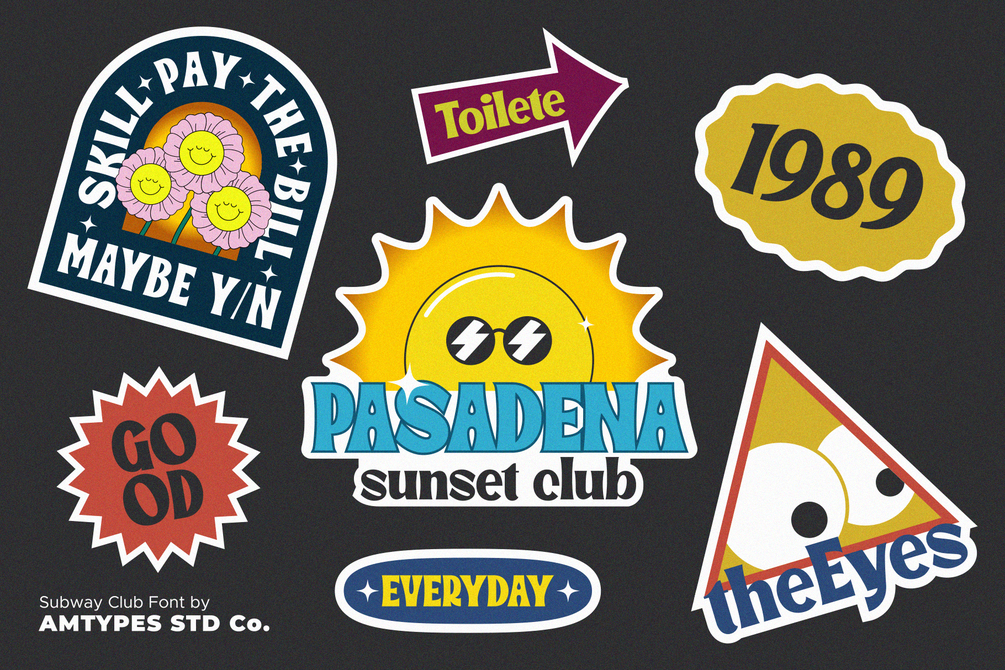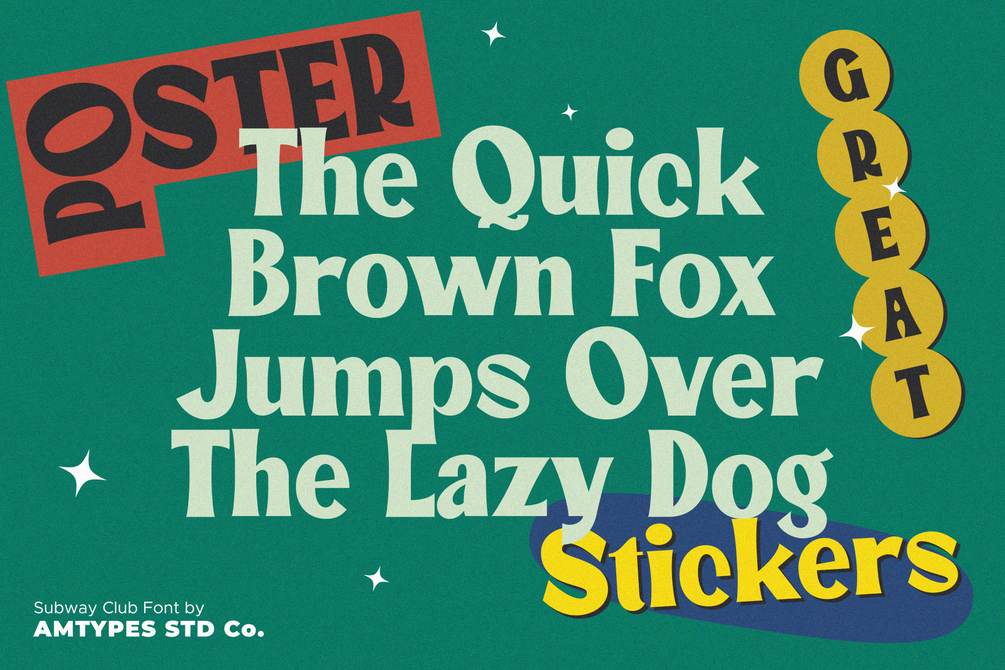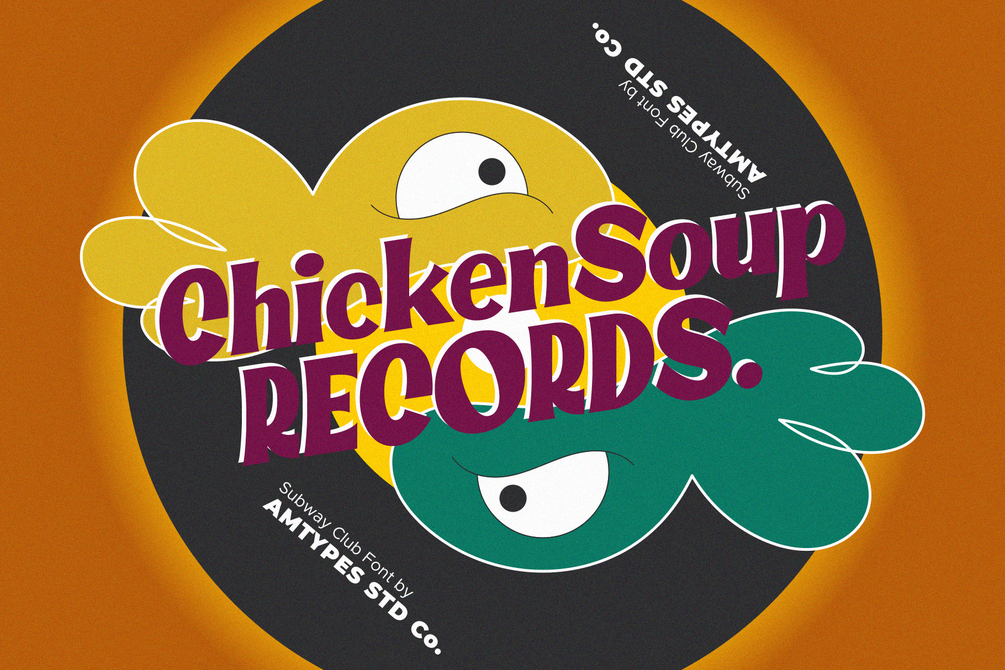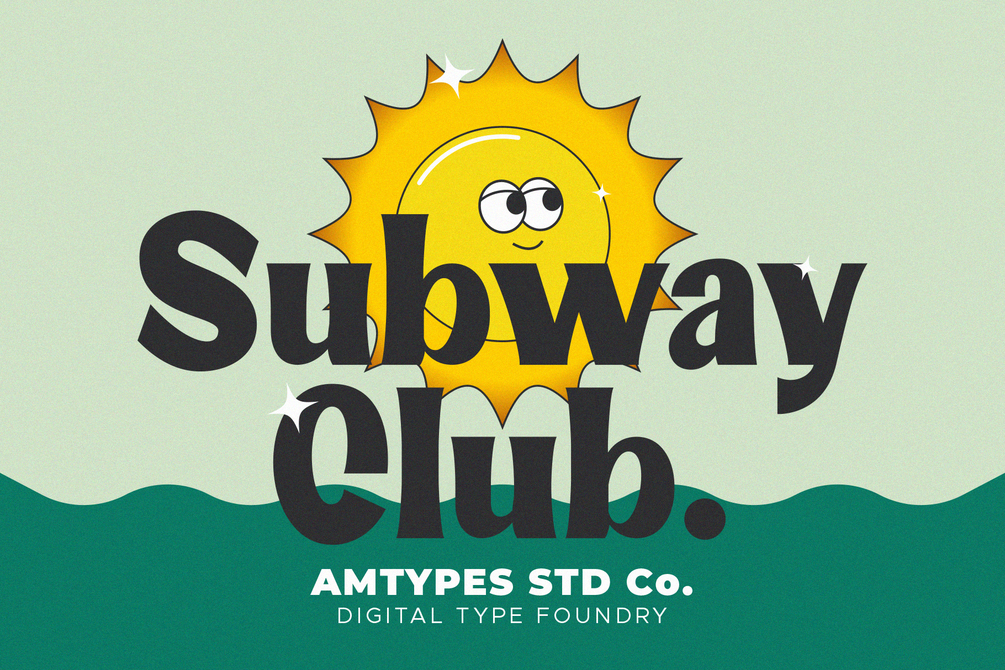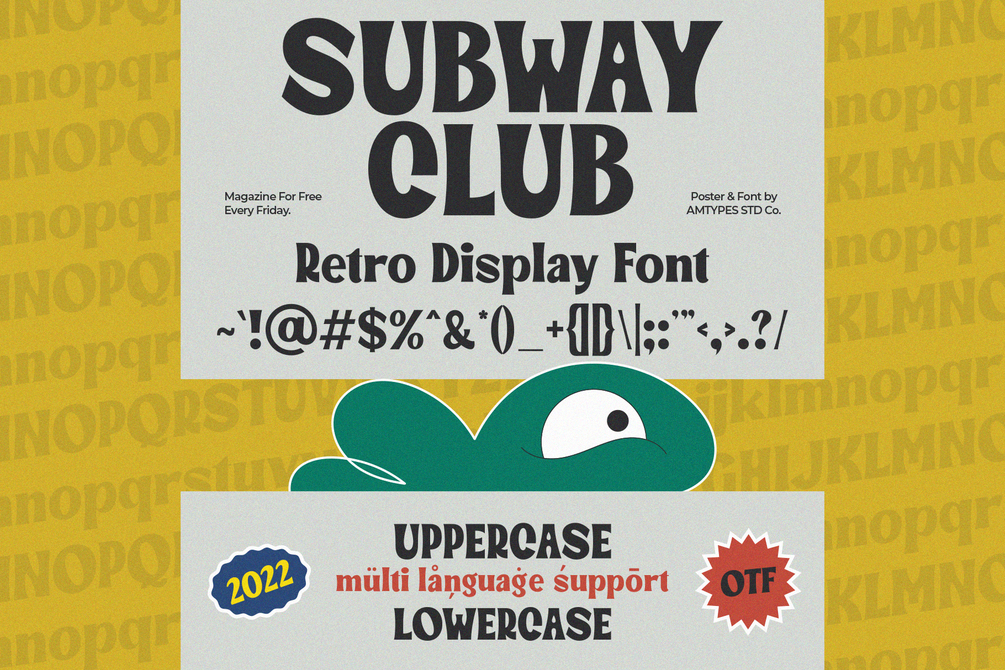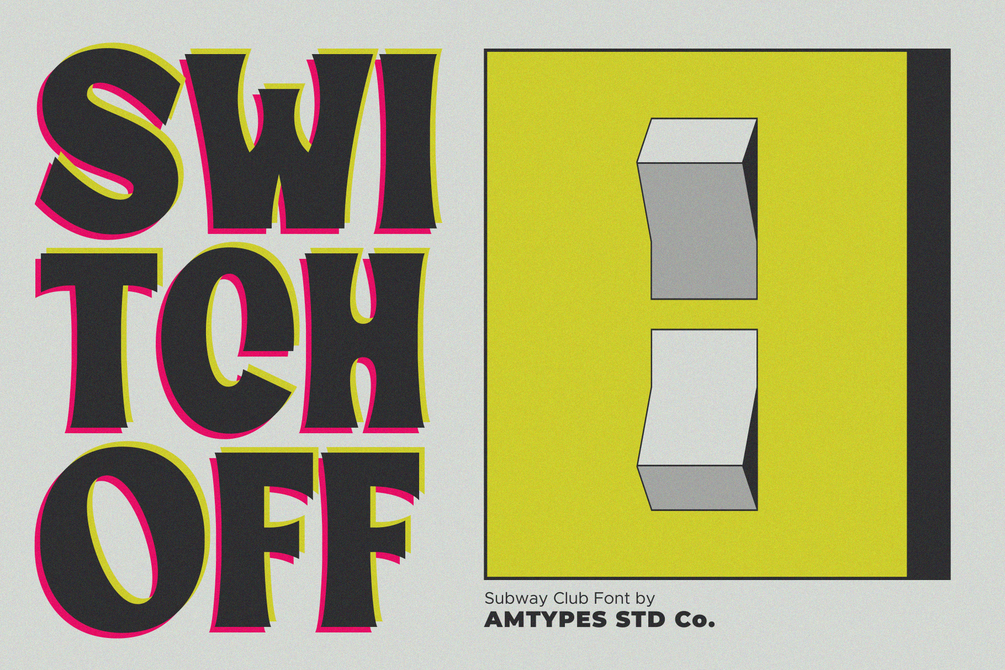
Subway Club
Subway Club is a retro display font made by passion. This font is perfect for print design needs such as posters, stickers, invitations, banners and also for digital design needs.
• Standar Character Uppercase & Lowercase
• Number & Punctuation
• Multi Language Support